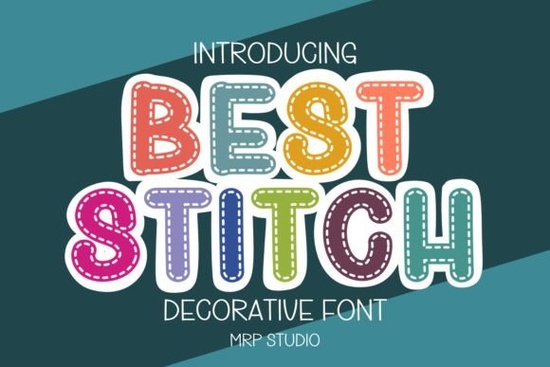
When it comes to adding a playful and adorable touch to your creative projects, the Best Stitch Font is a wonderful choice. This decorative font style is perfect for those who want to bring a friendly and charming vibe to their designs. Whether you're working on colorful child-related projects, mom-themed crafts, or even wedding invitations, Best Stitch can make your work stand out.
Why Choose Best Stitch Font for Your Projects?
Best Stitch Font is designed with a unique and endearing style that can add a special touch to a variety of creative endeavors. Its playful and decorative nature makes it ideal for projects that need a bit of whimsy and charm. Here are some reasons why you might consider using Best Stitch Font:
- Versatility: Best Stitch Font can be used in a wide range of projects, from back-to-school decorations to party invitations and social media posts.
- Child-Friendly: The playful and adorable design of this font makes it perfect for anything related to children, such as greeting cards, posters, and educational materials.
- Engaging Visuals: The decorative style of Best Stitch Font can help your designs stand out and capture attention, making it a great choice for eye-catching projects.
How to Use Best Stitch Font in Your Creative Projects
Incorporating Best Stitch Font into your designs is straightforward and can significantly enhance the visual appeal of your work. Here are some practical tips on how to use it effectively:
- Choose the Right Context: Consider the tone and theme of your project. Best Stitch Font works well for projects that have a playful, child-friendly, or whimsical theme. For more formal or professional projects, you might want to choose a different font.
- Combine with Other Fonts: To create a balanced and visually appealing design, try combining Best Stitch Font with other complementary fonts. For example, you could pair it with a clean, simple sans-serif font for a modern look, or a classic serif font for a more traditional feel.
- Play with Colors: Since Best Stitch Font has a playful and decorative style, don't be afraid to experiment with bright and bold colors. This can help your designs stand out and add an extra layer of creativity.
Examples of Projects Using Best Stitch Font
To give you a better idea of how Best Stitch Font can be used, here are some examples of projects where it shines:
- Party Invitations: Use Best Stitch Font for birthday party invitations, baby showers, or any other festive occasion. The playful style will set the right tone and make your invitations memorable.
- Back-to-School Decorations: Create fun and engaging back-to-school banners, name tags, and classroom decorations. The font's playful nature can make the transition back to school more exciting for kids.
- Wedding Invitations: For a more whimsical and relaxed wedding theme, Best Stitch Font can add a touch of charm to your invitations, thank-you cards, and other wedding stationery.
Where to Find Similar Fonts
Tips for Designers and Crafters
Here are some additional tips to help you get the most out of Best Stitch Font and other decorative fonts:
- Test Different Sizes: Experiment with different font sizes to see what works best for your project. Sometimes, a smaller size can make the font more readable, while a larger size can emphasize its decorative elements.
- Use White Space Wisely: Make sure to balance the use of Best Stitch Font with appropriate white space. This can help prevent your design from looking cluttered and ensure that the text is easy to read.
- Consider the Audience: Always keep your target audience in mind. If you're designing for children, Best Stitch Font is a great choice. For a more mature audience, you might want to use it more sparingly or in combination with other fonts.
By following these tips and incorporating Best Stitch Font into your creative projects, you can add a playful and charming touch that will make your designs stand out. Happy creating!
- Choose a project where the playful and decorative style of Best Stitch Font will shine.
- Experiment with different colors and font combinations to find the perfect match for your design.
- Share your creations with others and get feedback to refine your designs further.